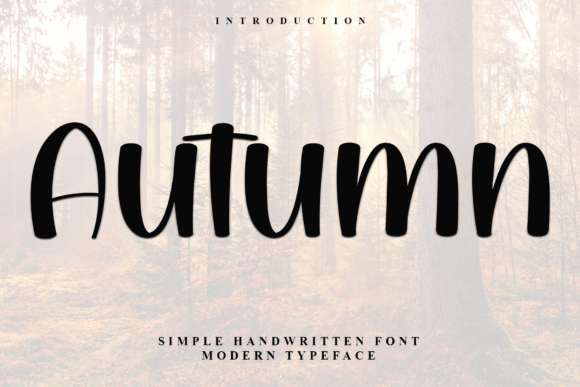
The Magic of Autumn Font: Elevate Your Designs with a Touch of Nature
I still remember the day I stumbled upon the perfect font for my design project. I was working on a autumn-themed craft, and no matter how hard I tried, I just couldn’t find a font that captured the essence of the season. That was until I discovered the Autumn Font. Its unique, soft touch and distinctive strokes instantly drew me in, and I knew I had found the one. In this article, I’ll share my experience with the Autumn Font, its features, and how to make the most of it in your designs.
An Honest Review of Autumn Font
So, what makes the Autumn Font so special? Here are a few things I love about it:
- ✨ Unique and eye-catching design: The Autumn Font has a distinctive style that sets it apart from other fonts.
- ✅ Versatile and meaningful: Its special character makes it perfect for a wide range of design projects, from crafts to creative works.
- 🌿 Natural and earthy feel: The font’s organic look and feel evoke a sense of nature and autumn.
- 🤔 Limited kerning options: Some users may find the kerning options a bit limited, but this can be easily adjusted in certain design applications.
- ⚠️ Not suitable for very small text: Due to its unique design, the Autumn Font may not be the best choice for very small text, as it can become difficult to read.
The Story Behind Autumn Font
The Autumn Font was designed with a passion for nature and a love for creative expression. Its creator, a talented typographer, was inspired by the beauty of autumn and the changing leaves. The result is a font that’s both unique and meaningful, perfect for designers and crafters who want to add a touch of nature to their work.
| What is the Autumn Font? | The Autumn Font is a unique and eye-catching font designed with a soft, natural touch. |